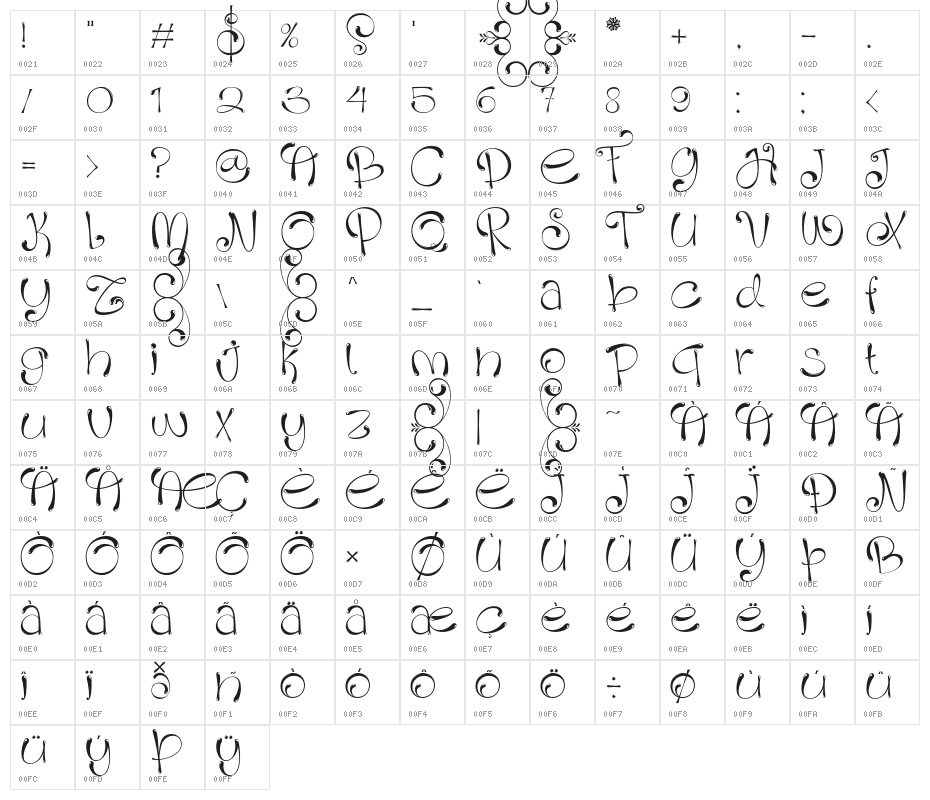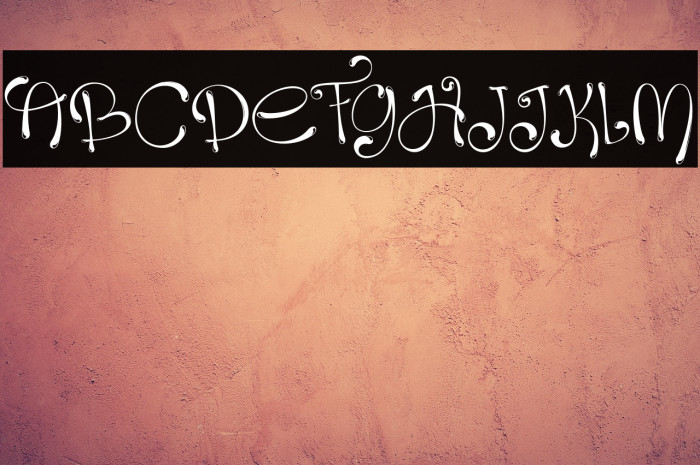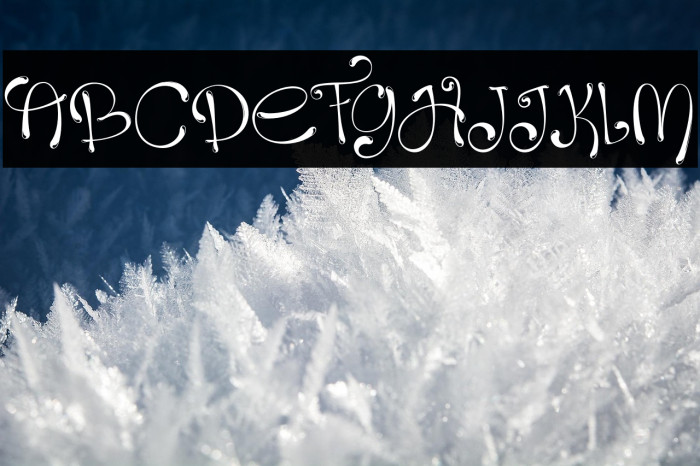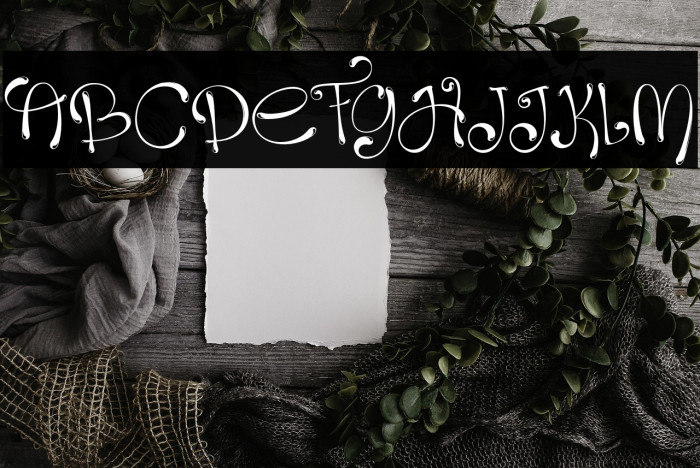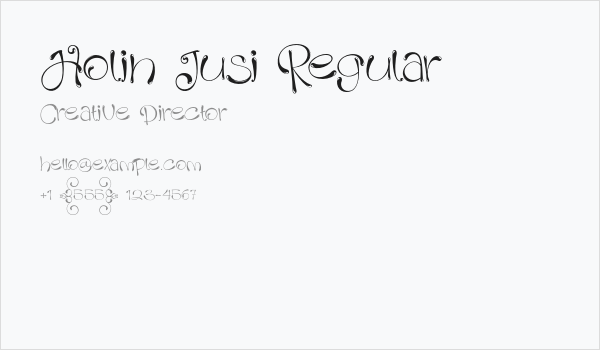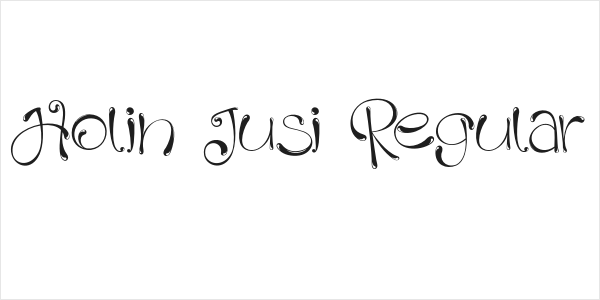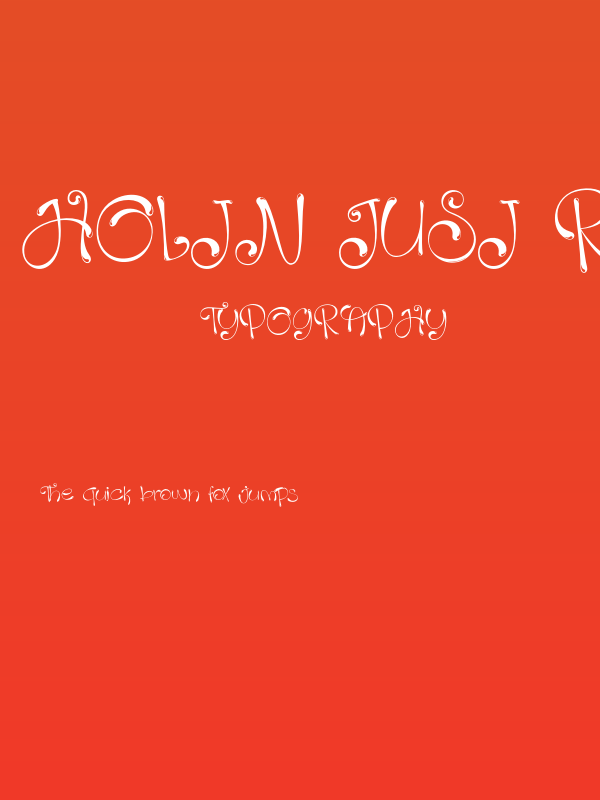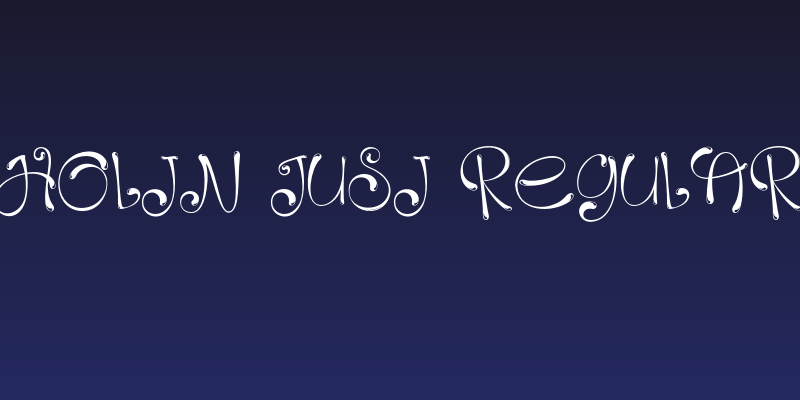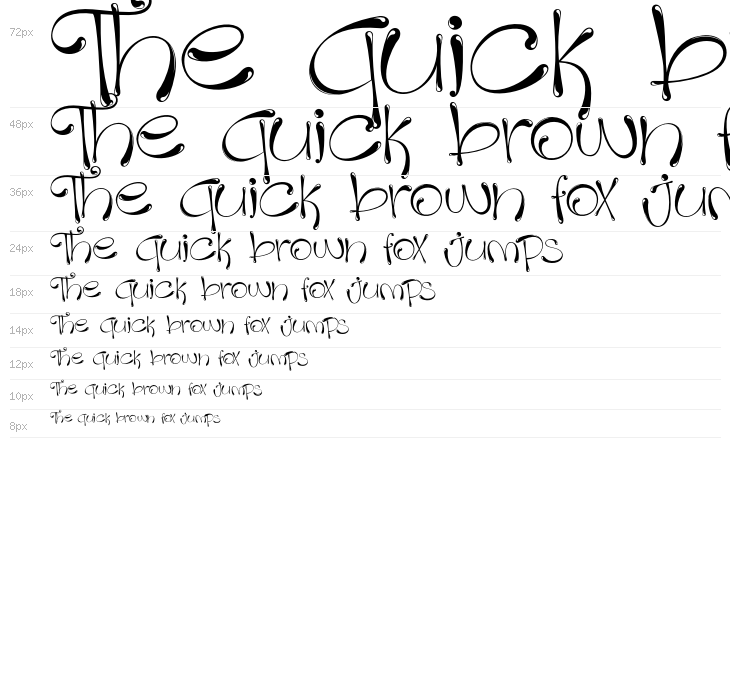
Holin Jusi Regular Font
Holin Jusi Regular Description
This font features an artistic and whimsical design, characterized by its flowing curves and decorative elements. The uppercase and lowercase letters are adorned with unique flourishes, giving each character a playful and elegant appearance. The numbers and special characters maintain this decorative style, ensuring consistency throughout the font. The overall look is both sophisticated and fun, making it suitable for creative projects that require a touch of elegance and flair.